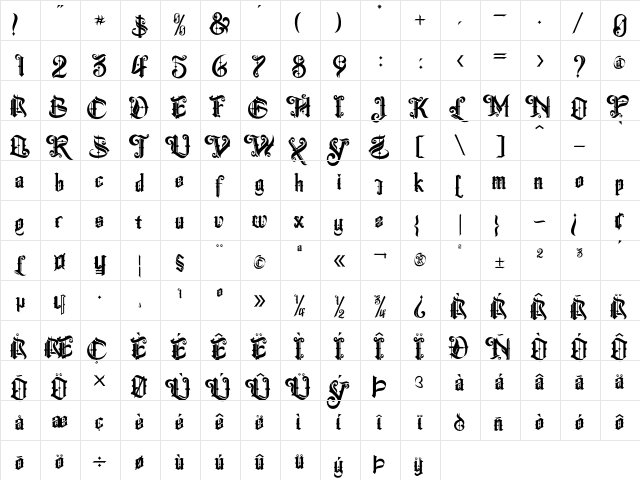
The Centurion Regular
| Foundry | Creativework69 Studio |
| Designer | Daddi Daryawan |
Design Context for The Centurion Typeface
The Centurion is a composed and adaptable typeface that performs quietly and consistently across a wide range of design contexts.